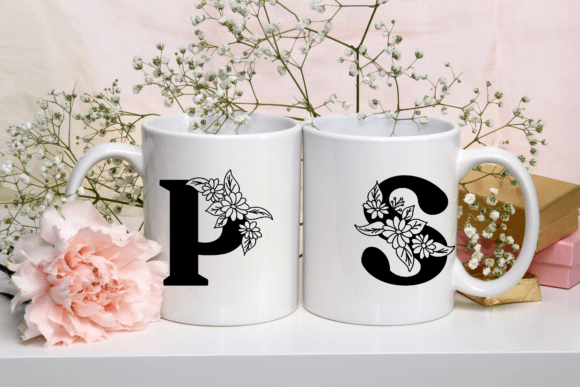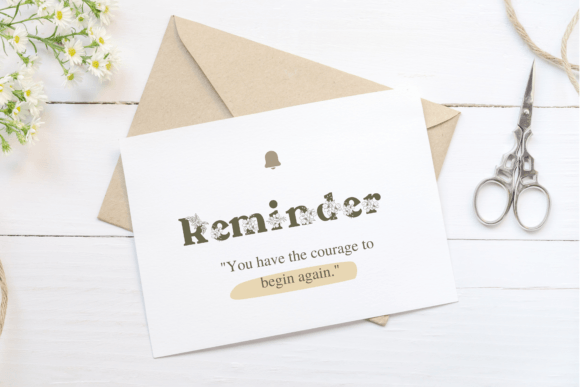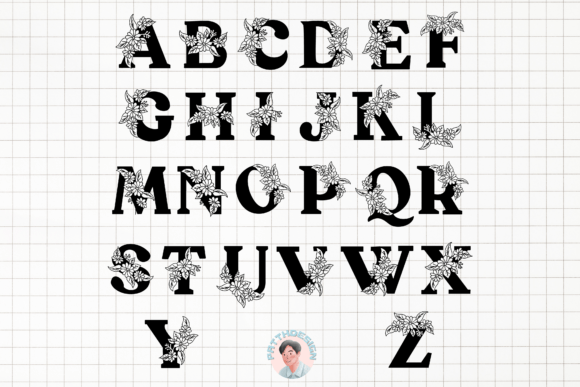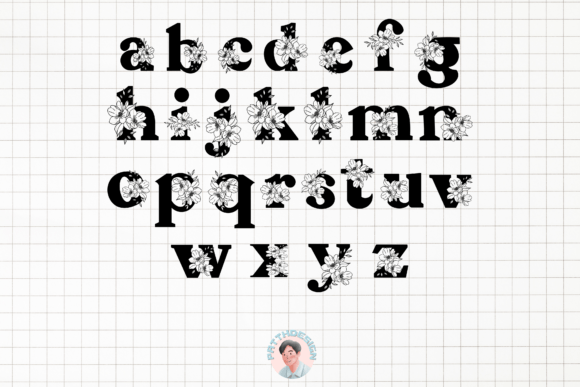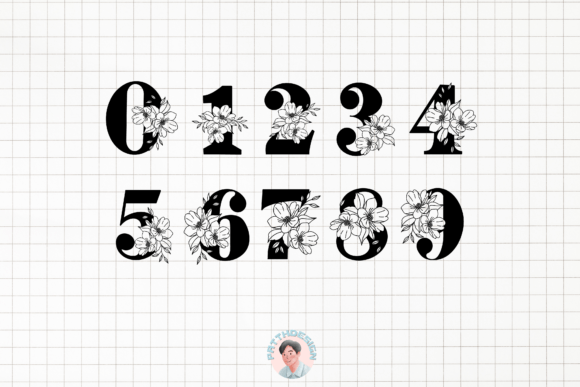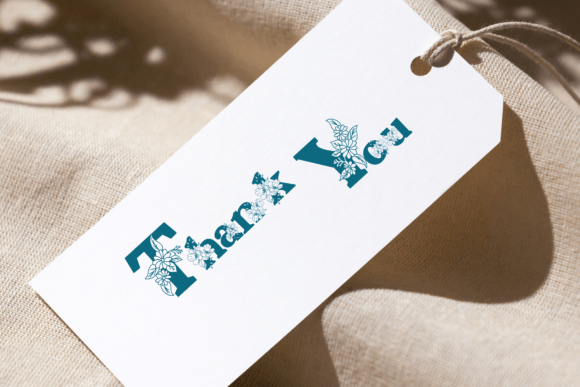
Unlock the Magic of Spring with the Botanical Font
There’s something special about stepping into a garden on a crisp spring morning, surrounded by vibrant blooms and the sweet scent of blossoming flowers. As a designer, I’m sure you’ve had moments like these, where the world feels full of possibility and inspiration. And that’s exactly what the Botanical Font is all about – capturing the essence of nature and bringing it to life in your designs.
This gorgeous decorative font is the perfect addition to your library, elevating any creation with its unique blend of elegance and whimsy. Whether you’re working on a project related to gardening, wellness, or simply looking to add some visual interest to your designs, the Botanical Font is sure to impress. Its versatility makes it a valuable asset for designers of all levels, and its beauty is sure to leave a lasting impression on your audience.
Botanical Font Key Features
- Unique Characteristics: Botanical Font features intricate illustrations of plants and flowers, adding an organic and natural touch to designs.
Designer Review: Botanical Font
Overall, I found the Botanical Font to be an interesting and unique addition to any design project. Here’s what works well and what doesn’t:
- ✨ The botanical theme is cleverly executed through the use of organic shapes and leaf-inspired flourishes, making it perfect for nature-themed projects or those requiring a touch of elegance.
- ✨ The font is highly customizable, with a wide range of weights and styles to choose from, allowing designers to create a look that suits their specific needs.
- ✨ The font is well-suited for use in headers and titles, where its ornate details can shine.
- ⚠️ The font may be too ornate for certain projects, such as those requiring a clean and minimalist look.
- ⚠️ Some characters may not be perfectly legible at smaller font sizes, which could make reading difficult.
- ⚠️ The font may not be suitable for use in body text, where its complexity could make reading tiring.
Overall, the Botanical Font is a great addition to any designer’s toolkit, but it’s essential to use it judiciously and consider the specific needs of each project.
Tips for Getting the Most Out of Botanical Font
Use Botanical Font to create elegant and sophisticated designs, such as:
- Floral and botanical illustrations
- Herbal and botanical labels
Experiment with different font sizes, colors, and styles to create unique and eye-catching designs.
Botanical Font is ideal for:
- Floral and botanical-themed designs
- Herbal and botanical product labels
- Wedding and event stationery